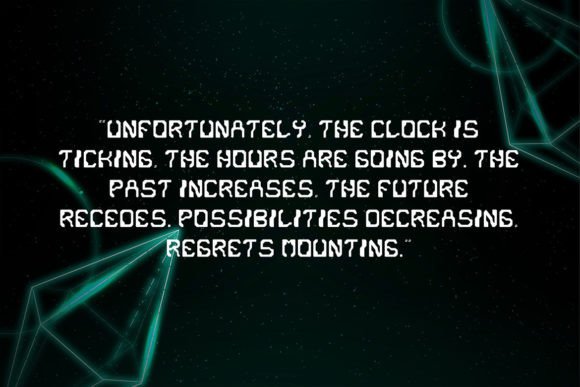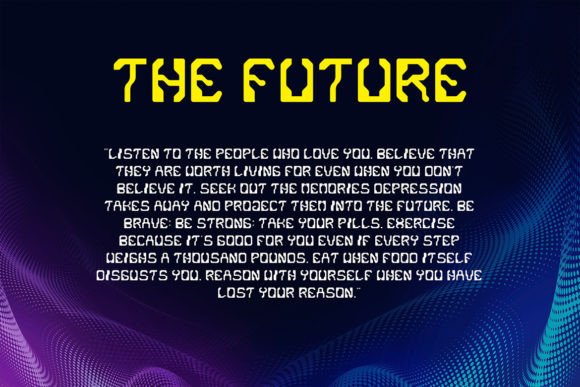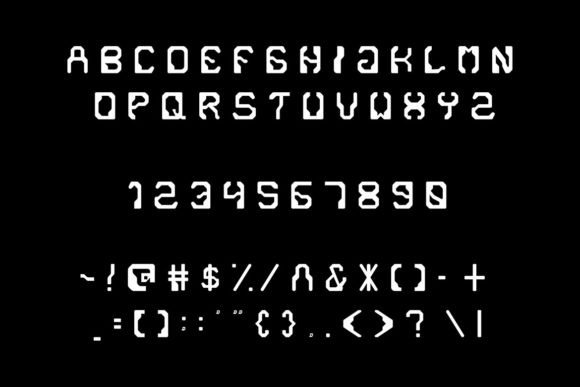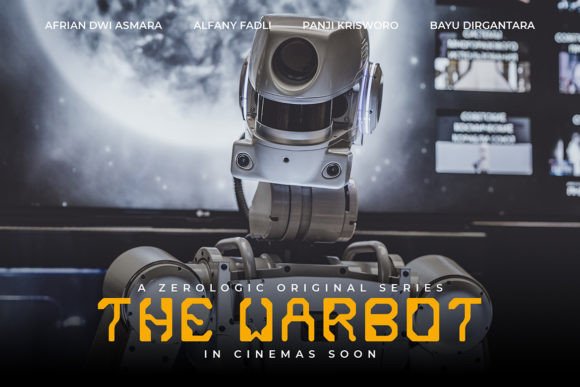
Introduction to Javier Dilla Font
Javier Dilla is a modern font that we designed with original touch for your needs.
This cool font is complete with Uppercase, Lowercase, and Numeric & symbols This very strong and sharp font is perfect for titles, typography, posters, magazines, brochures, packaging, Websites, and much more for your design needs, making your designs cooler.
Key Features of Javier Dilla Font
Why Choose Javier Dilla Font?
Javier Dilla Font offers exceptional quality and versatility, making it a valuable addition to your design toolkit. Whether you’re creating for personal projects or commercial use, Javier Dilla Font delivers professional results.